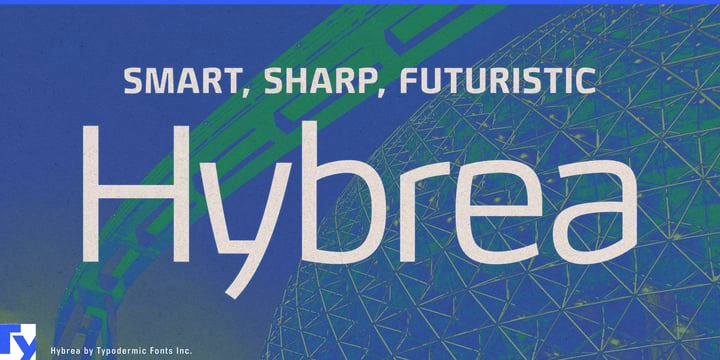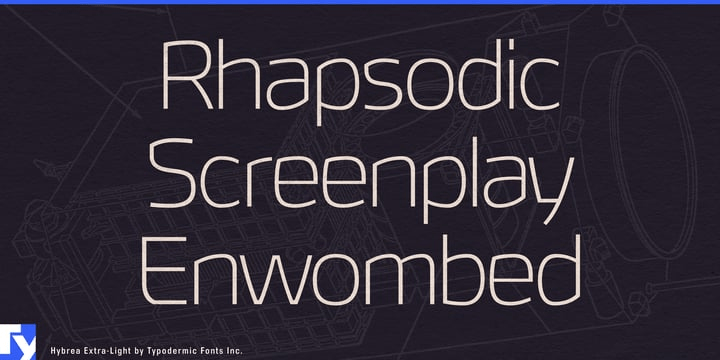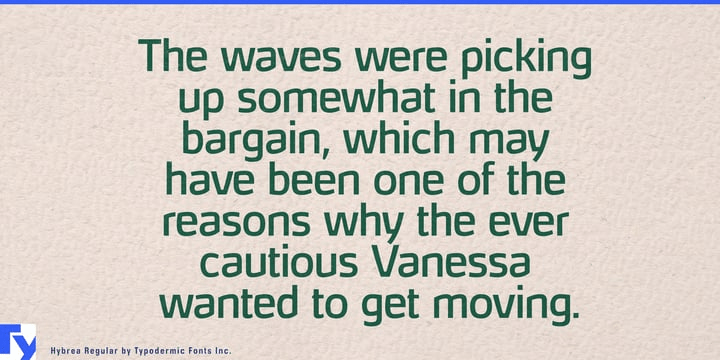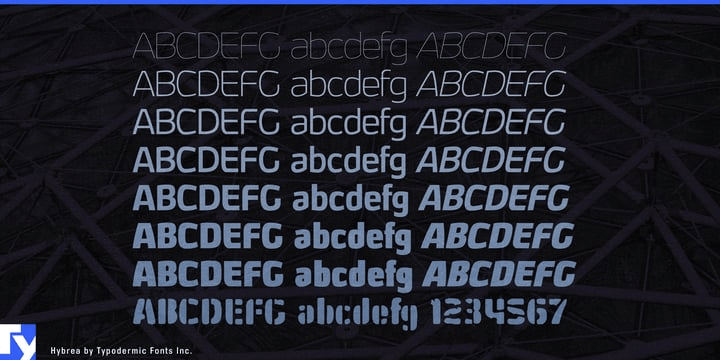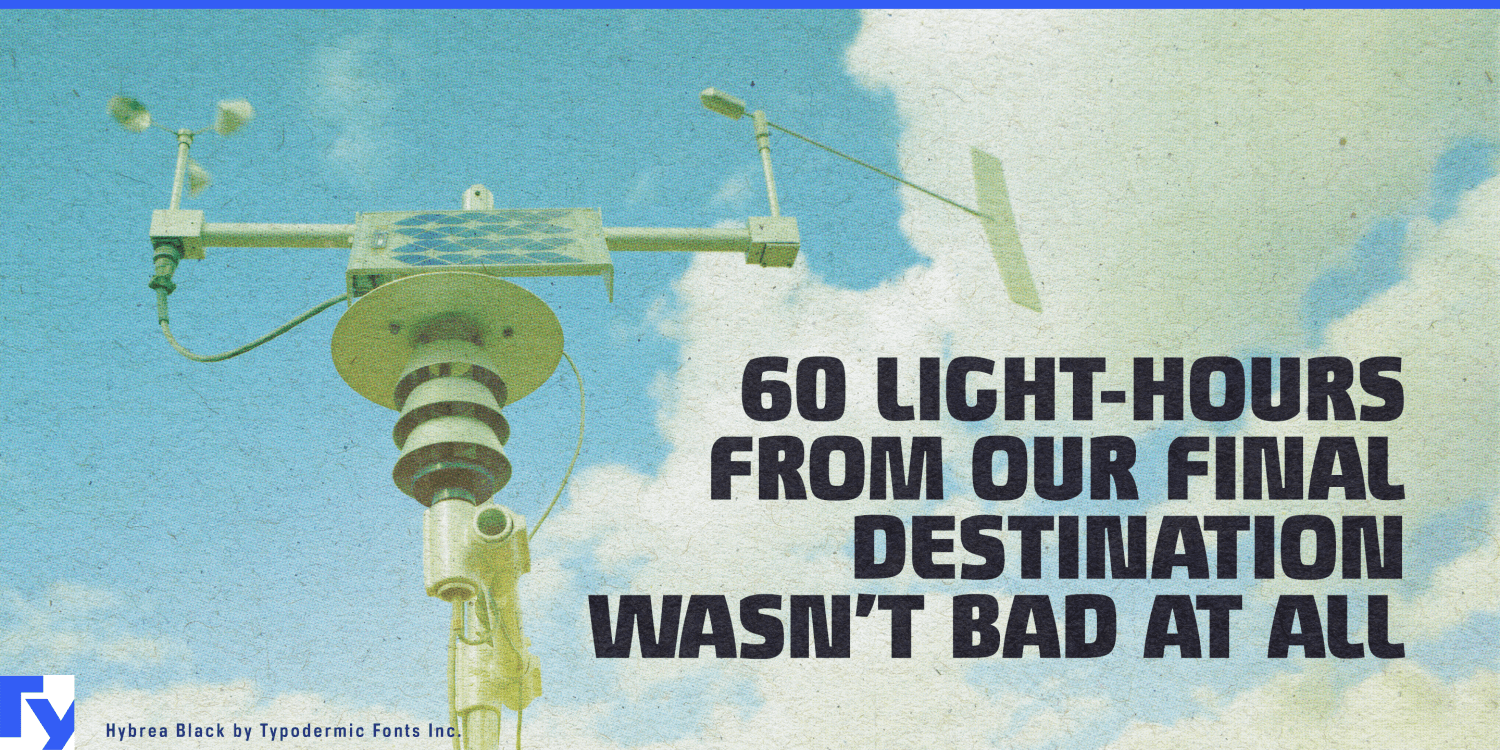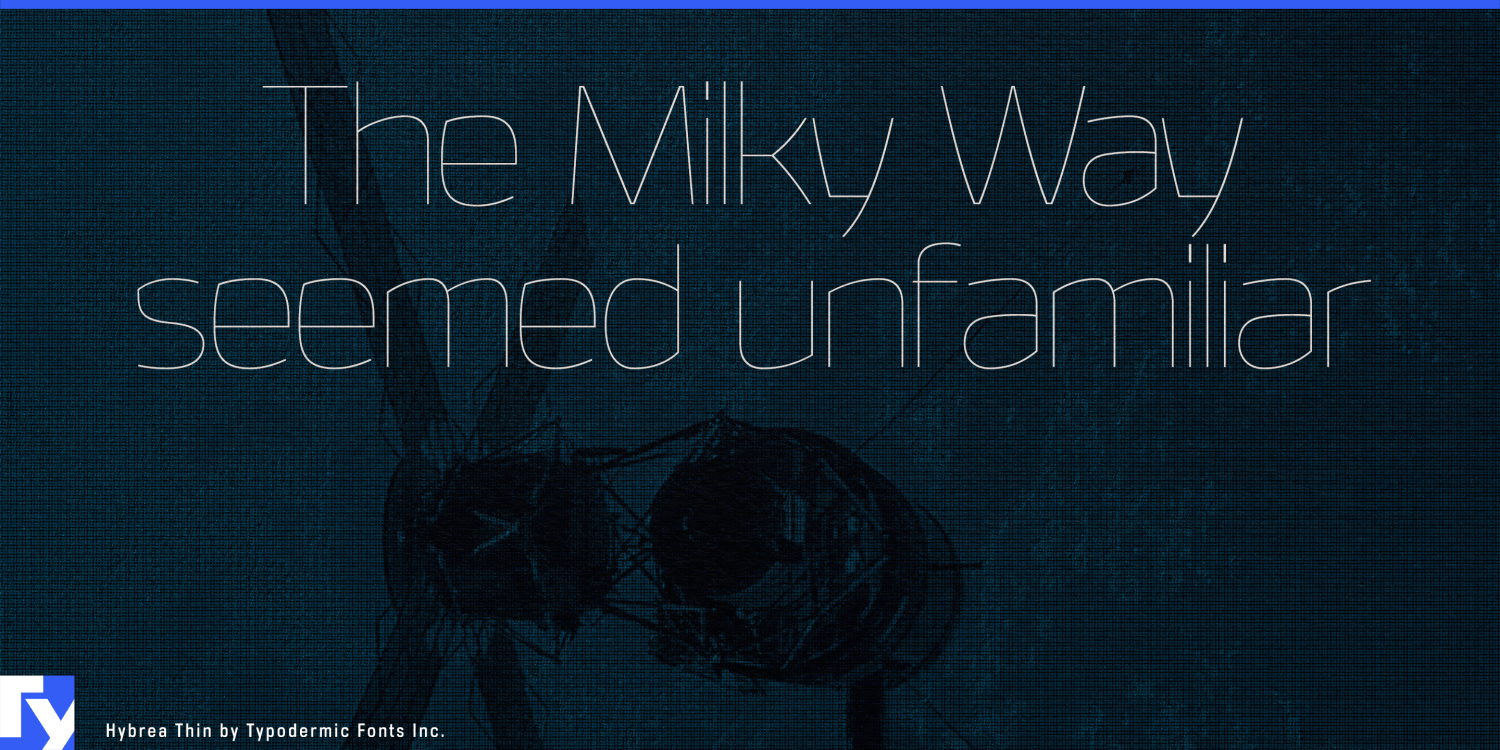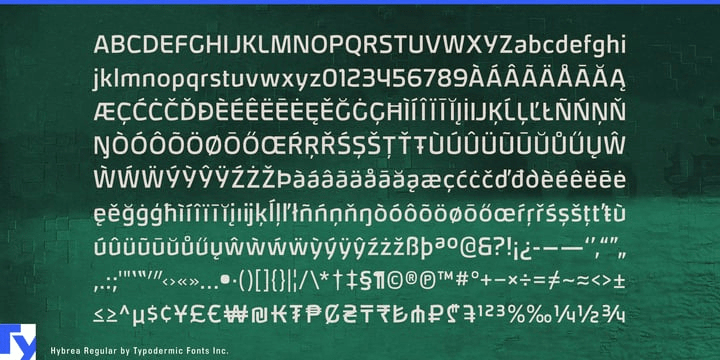
Hybrea
Font Family by Typodermic
Advanced energy technology has an image problem. Solar inverters, battery systems, heat pumps and charging equipment need to look engineered and credible, but the visual language of heavy industry can make clean technology feel harsher and older than the systems themselves. Hybrea brings technical structure without the coldness: firm corners and angular decisions are tempered by softened curves, giving the lettering an engineered character that still feels appropriate in homes, offices and contemporary public spaces.
That balance makes clean energy one of Hybrea’s strongest territories. Solar-panel manufacturers, home-battery systems, wind-energy equipment, EV charging networks, hydrogen technology and energy-management platforms all need product names, model families, specification headings and exhibition graphics. Hybrea suggests precision and advanced engineering without resorting to circuitry, segmented displays or overtly futuristic effects.
Building technology extends the same idea into architecture. Heat pumps, energy-recovery ventilation, smart glass, high-performance façades, lighting systems and sustainable construction materials sit between engineering and the designed environment. Hybrea’s combination of hard geometry and controlled curves suits product catalogs, architectural presentations, trade-show displays, project names and larger technical explanations where an anonymous corporate sans would lose some of the subject’s character.
Transportation technology is another natural fit. Vehicle-launch graphics, performance components, wheel and suspension brands, motorcycle accessories and automotive design studios can use Hybrea for product-family names, feature headings and presentation material. It feels shaped rather than simply typeset, helping it sit comfortably beside molded panels, machined parts and engineered surfaces.
Industrial and product-design studios face a similar typographic problem. Concept boards, prototypes, materials presentations and design case studies often need something more distinctive than a neutral grotesque but less theatrical than a science-fiction display face. Hybrea can provide that technical layer across headings, captions, diagrams and short passages while a quieter companion face handles sustained reading.
Seven weights with matching italics let that character move from restrained technical headings to substantial product names and signage. Hybrea Dirty adds a rough stencil interpretation for occasional contrast: prototype markings, workshop graphics, crate labels or other places where the clean system benefits from a more improvised industrial accent.
Hybrea is built around a useful tension: curves without softness for its own sake, corners without mechanical rigidity. That makes it particularly suited to the technologies reshaping energy, transportation and the built environment; systems that need to look engineered for what comes next rather than inherited from the factory floor.